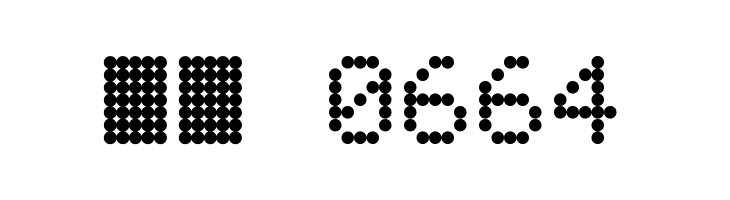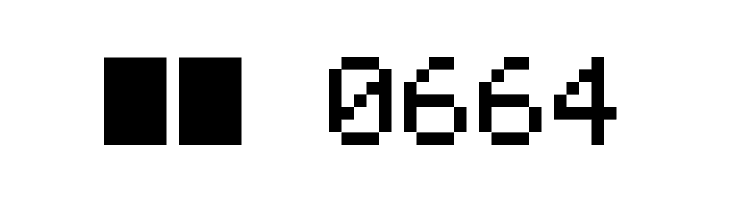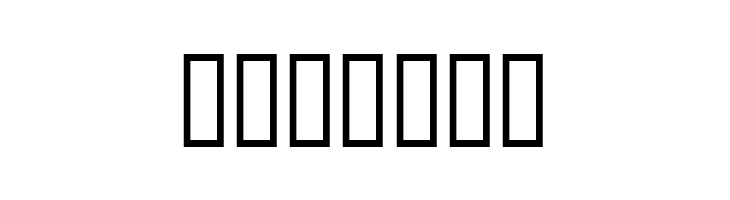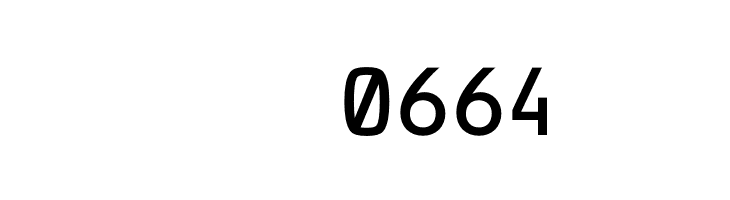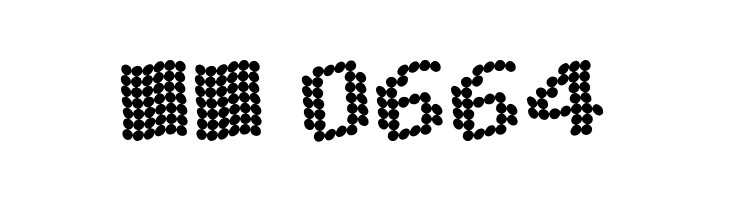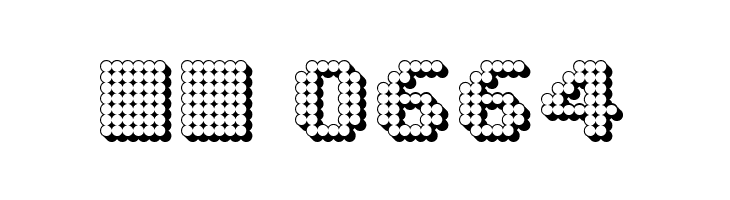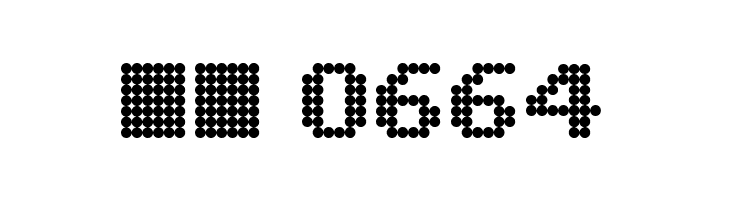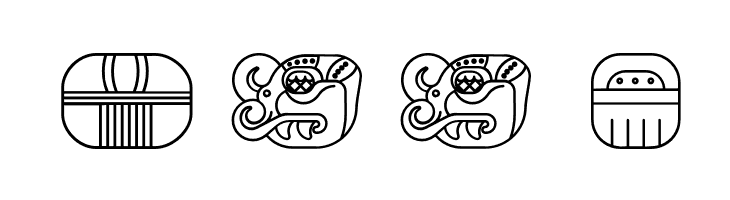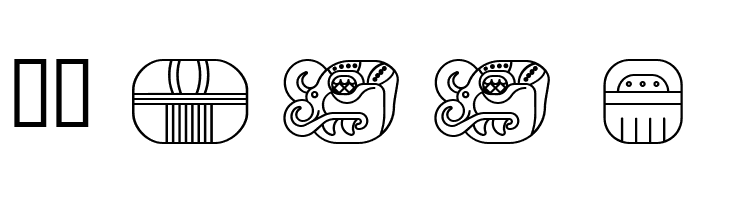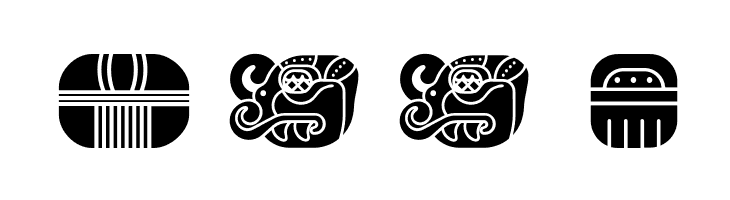
( Fonts by www.norfok.com - Norfok® Incredible Font Design - Thomas W. Otto )
A clean, modern font with clear, consistent characters and Japanese katakana elements.
( Font by Jayvee D. Enaguas - grandchaos9000.deviantart.com )
A 3D dot matrix font with a futuristic and digital aesthetic.
( Font by Jayvee D. Enaguas - grandchaos9000.deviantart.com )
A dot-matrix style font with a modern, digital appearance.
( Font by Jayvee D. Enaguas - grandchaos9000.deviantart.com )
A modern, dot-based font with a playful, digital aesthetic.
A pixelated, dot matrix font with a digital and retro aesthetic.
A pixelated, italic font with a digital, modern style.
A digital, pixelated font with outlined squares for a modern tech look.
( Warrock designs )
A bold, futuristic font with geometric and rounded characters.
( Piratype )
A dot matrix style font with a modern, digital appearance.
A bold, angular font with a geometric and edgy design.
A narrow, elegant serif font with high contrast and sharp serifs.
A bold, wide serif font with sharp serifs and high contrast strokes.
( Fonts by Piratype )
A dot matrix font with a futuristic and retro digital display style.
( Fonts by GGBotNet )
A dot matrix style font with a modern, digital appearance.
( Fonts by GGBotNet )
A bold, dot-based font with a retro digital style.
( Fonts by GGBotNet )
A pixelated, retro-style font with a blocky, geometric appearance.
( Fonts by GGBotNet )
A pixelated, grid-based font with a retro digital style.
( Fonts by Galdino Otten - galdinootten.com )
A bold, dotted decorative font with a dynamic and playful appearance.
( Fonts by Galdino Otten - galdinootten.com )
A bold, playful font with dotted shadow effects, combining modern and retro styles.
( Rafael Saldaña - ikarusmedia.deviantart.com/gallery/ https://www.dafont.com/es/dotgrid.font )
A decorative font inspired by intricate Mayan glyphs, featuring bold and detailed designs.
( Rafael Saldaña - ikarusmedia.deviantart.com/gallery/ https://www.dafont.com/es/dotgrid.font )
Intricate glyphs inspired by ancient Mayan art with bold outlines.
( Rafael Saldaña - ikarusmedia.deviantart.com/gallery/ https://www.dafont.com/es/dotgrid.font )
A decorative font inspired by ancient glyphs, featuring intricate and bold designs.
( Rafael Saldaña - ikarusmedia.deviantart.com/gallery/ https://www.dafont.com/es/dotgrid.font )
An intricate, decorative font inspired by ancient glyphs with detailed line work.
( Fonts by Sora Sagano - www.dotcolon.net )
A classic serif font with high contrast and elegant strokes.
( Studio Dot by dot - Sjoerd Kulsdom - www.dotbydot.nl/fonts )
A modern, geometric font with a monolinear and interconnected style.
( Studio Dot by dot - Sjoerd Kulsdom - www.dotbydot.nl/fonts )
A modern, playful font with rounded, interconnected characters.
( Studio Dot by dot - Sjoerd Kulsdom - www.dotbydot.nl/fonts )
A bold, italic script font with a modern and dynamic style.
( Studio Dot by dot - Sjoerd Kulsdom - www.dotbydot.nl/fonts )
A modern, ultra-lightweight font with a minimalistic and geometric design.
( Studio Dot by dot - Sjoerd Kulsdom - www.dotbydot.nl/fonts )
A delicate, flowing font with elongated, slanted characters and a modern, airy feel.
( Studio Dot by dot - Sjoerd Kulsdom - www.dotbydot.nl/fonts )
A modern, geometric font with thin, continuous strokes and a playful yet sophisticated style.
( Studio Dot by dot - Sjoerd Kulsdom - www.dotbydot.nl/fonts )
A light, italicized font with elegant, flowing characters and generous spacing.
( Studio Dot by dot - Sjoerd Kulsdom - www.dotbydot.nl/fonts )
A modern, elegant font with slender, italicized characters and smooth strokes.